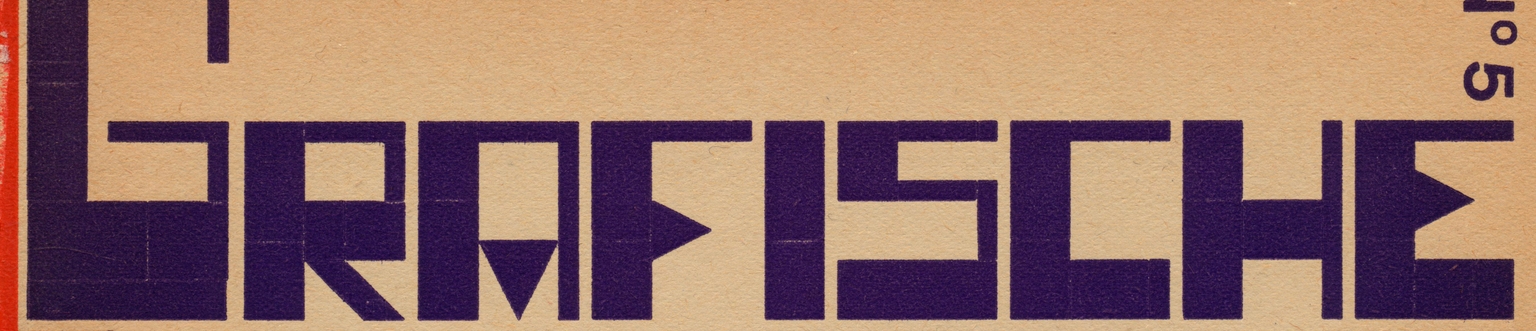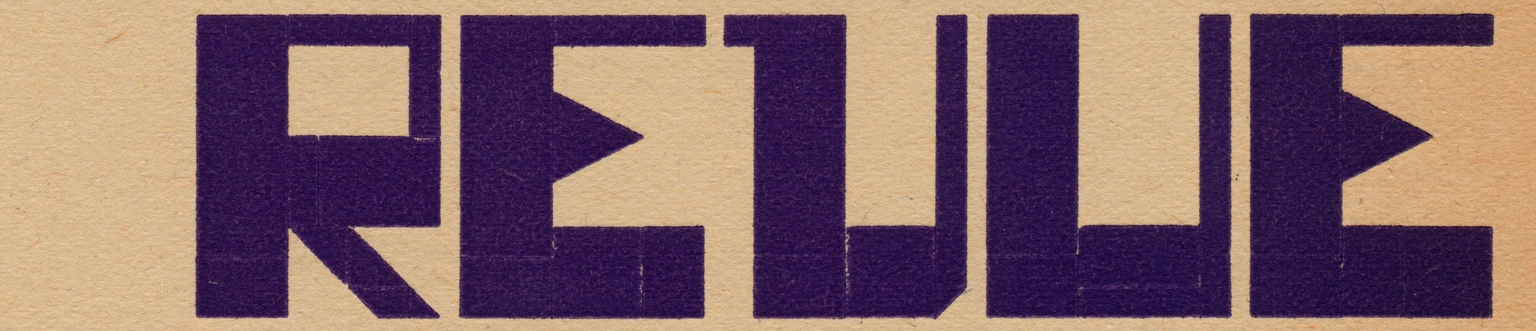
Tikte
Tikte is a squarish sans typeface designed by Paula Mastrangelo, inspired by the radically modular lettering featured on the cover of the November 1931 edition of Grafische Revue, a Dutch trade magazine for the printing and graphic industry. With its extreme geometry and strict grid-based construction, the original title lettering stands as a bold example of avant-garde design at the edge of functionality and abstraction.
In Tikte, Mastrangelo has expanded this striking concept into a full alphabet, preserving the visual tension between rigidity and rhythm. Its forms are unapologetically blocky and experimental, yet carefully balanced for impactful contemporary use. Ideal for editorial headlines, posters, innovative websites, museum publications, visual identities, and any project that dares to push visual boundaries, Tikte speaks in a loud, uncompromising voice.
By reviving this forgotten fragment of Dutch modernist design, Tikte celebrates a moment when typography became a space for radical play and structural clarity.